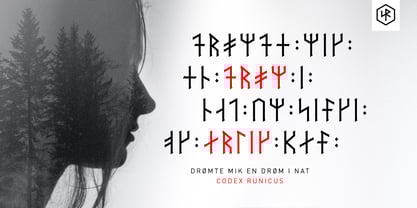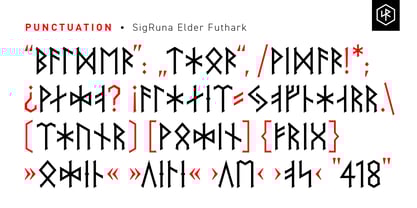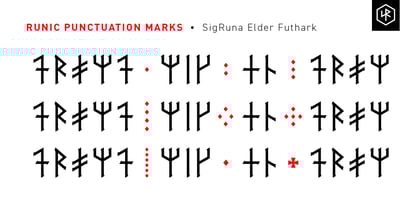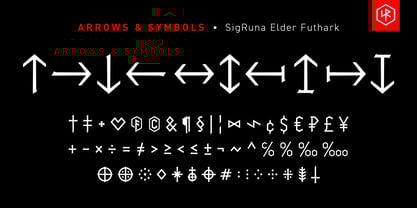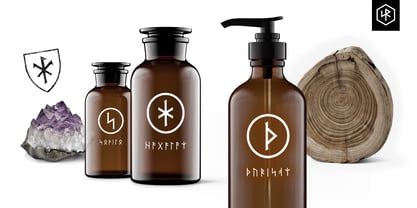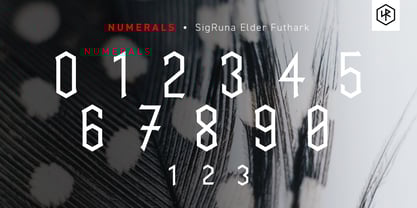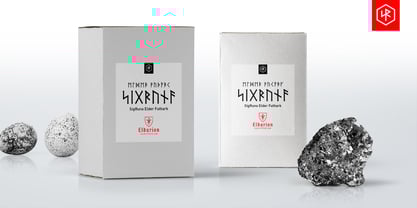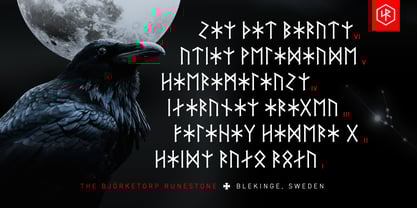
SigRuna Elder Futhark
by Eldarion Skriptorium
The SigRuna Elder Futhark Font Family was designed by Stephan Berger and published by Eldarion Skriptorium. SigRuna Elder Futhark contains 1 styles. More about this family
SigRuna Elder Futhark In General
The SigRuna Elder Futhark font was created around the so-called Common Germanic Futhark, also known as the Elder Futhark, whose use is documented for at least 2000 years and it is even assumed by some rune researchers that the Elder Futhark is the basis of all other writing systems. In addition to the basic runes, it offers a variety of traditional alternative forms, according to the descriptions in Edred Thorsson's book ‘Futhark - Handbook of Rune Magic’, published in 1984. Furthermore, fall and turn runes, numerals, currency signs, arrows, numerous symbols and standard punctuation marks as well as special runic punctuation marks are included.
Majuscle Letters
The basal runes of the Elder Futhark as well as their fall and turn runes are integrated in the uppercase character table. Although umlauts were not part of the original Futhark, the umlaut glyphs in ‘SigRuna Elder Futhark’ are supplemented with corresponding characters as they are known from various historical sources.
Minuscle Letters
Alternative forms to the standard runic forms can be found in the lowercase character table.
Future Updates
Eldarion Skriptorium is currently working on offering even more font weights for ‘SigRuna Elder Futhark’. The alternative forms in the lowercase character table are also to be provided in the future with their fall and turn runes.